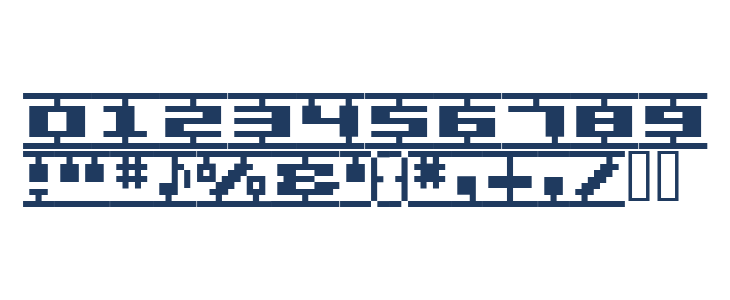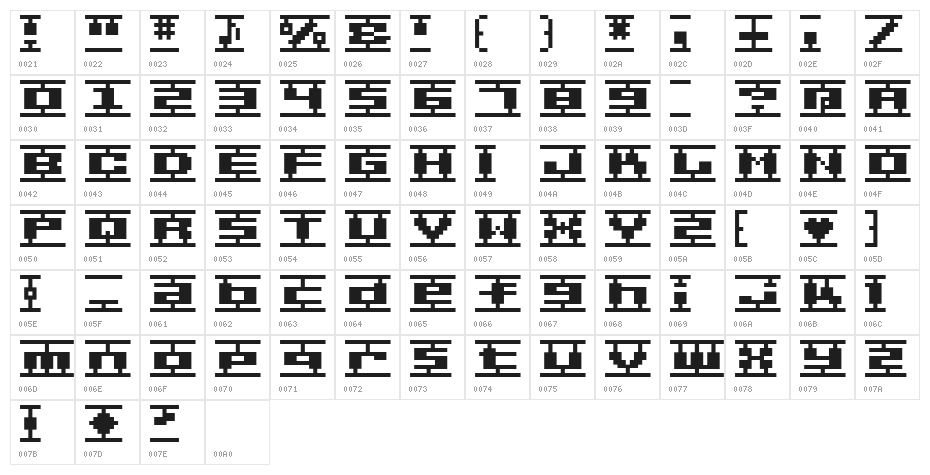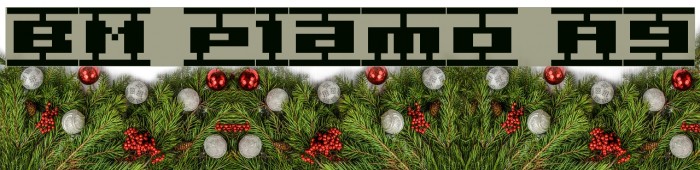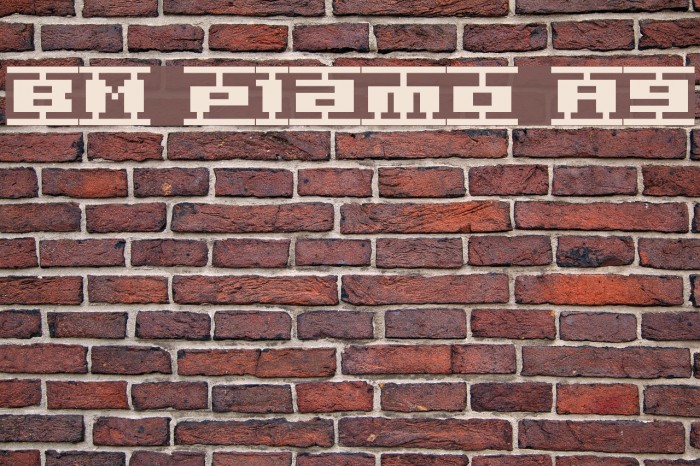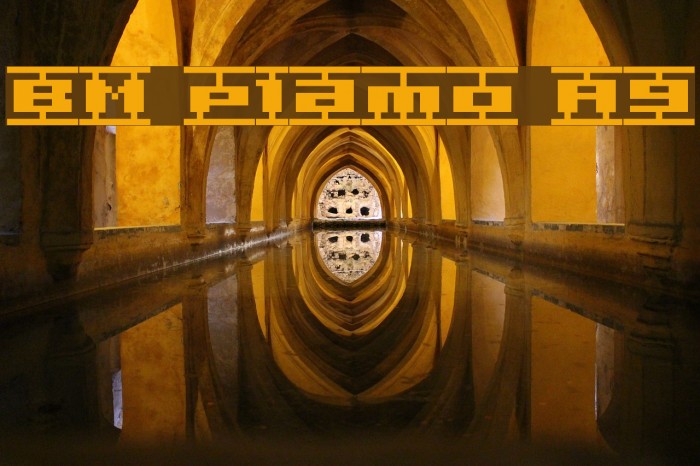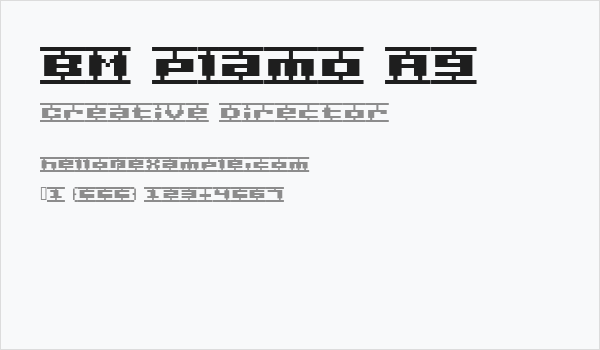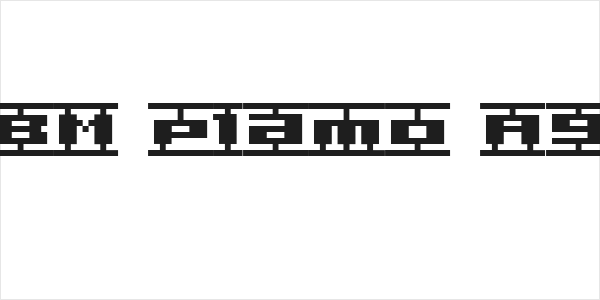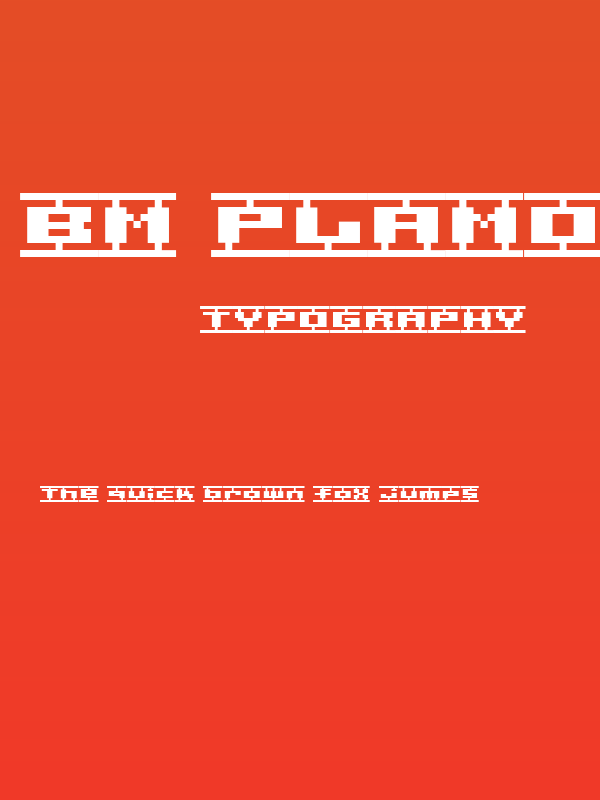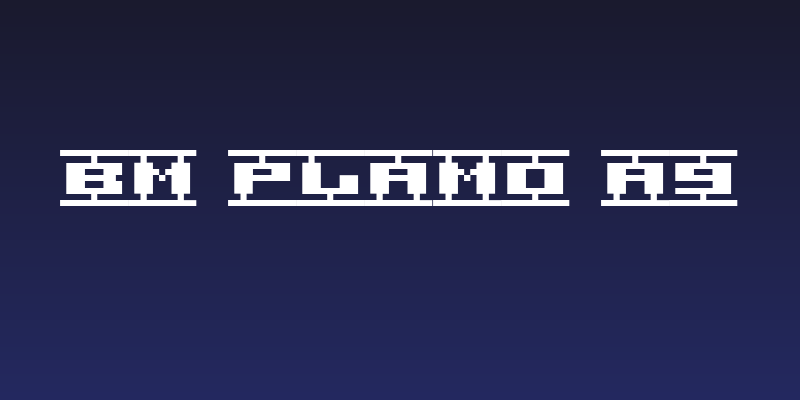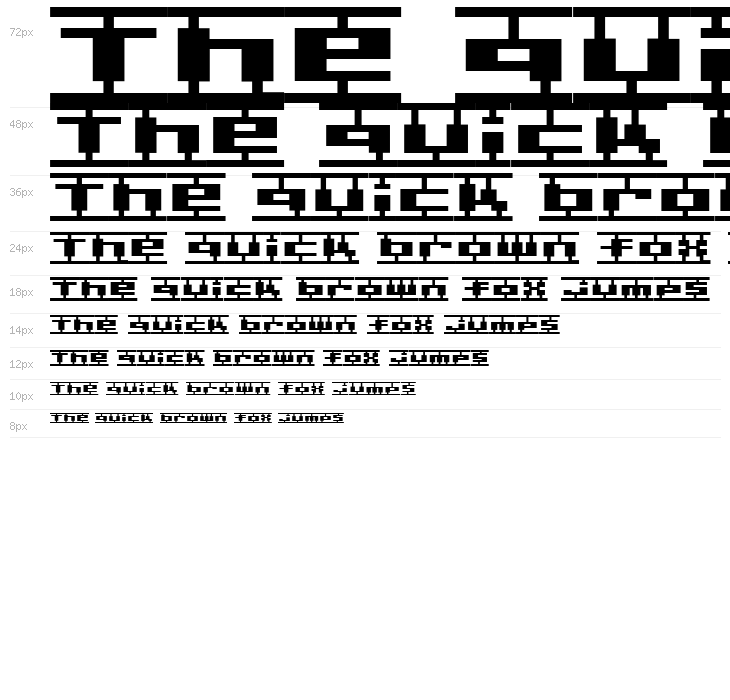
BM plamo A9 Font
BM plamo A9 Description
This font features a bold, pixelated style reminiscent of early digital or arcade game typography. Each character is constructed with a blocky, grid-like appearance, giving it a distinctly retro and technological feel. The uppercase and lowercase letters maintain a consistent height, contributing to a uniform and cohesive look. The numerals and special characters are designed with the same pixelated approach, ensuring visual harmony across all elements. The font's geometric and structured design makes it ideal for projects that aim to evoke nostalgia or a digital aesthetic.
| Overall Style | Retro, Digital |
| Proposed Projects | Ideal for video game design, retro-themed posters, digital art projects, and tech-related branding. |